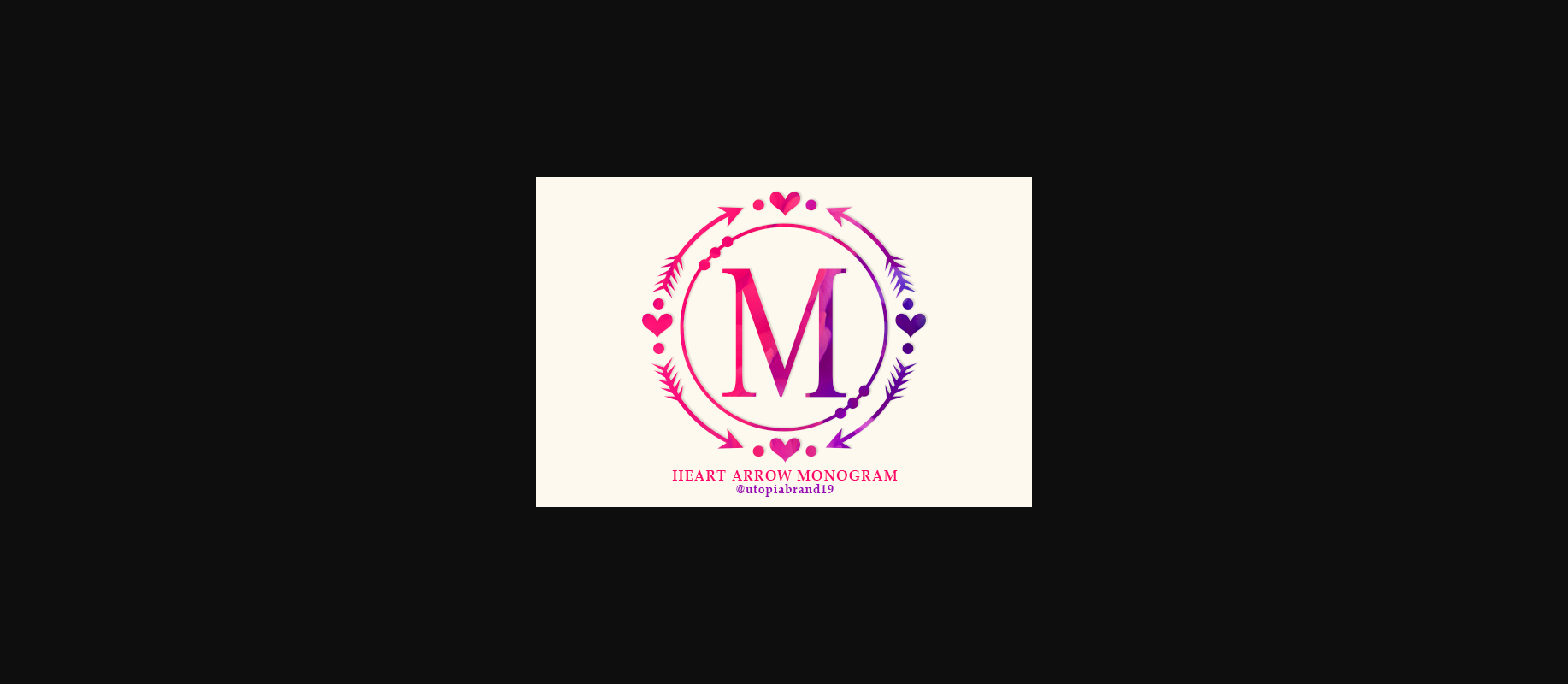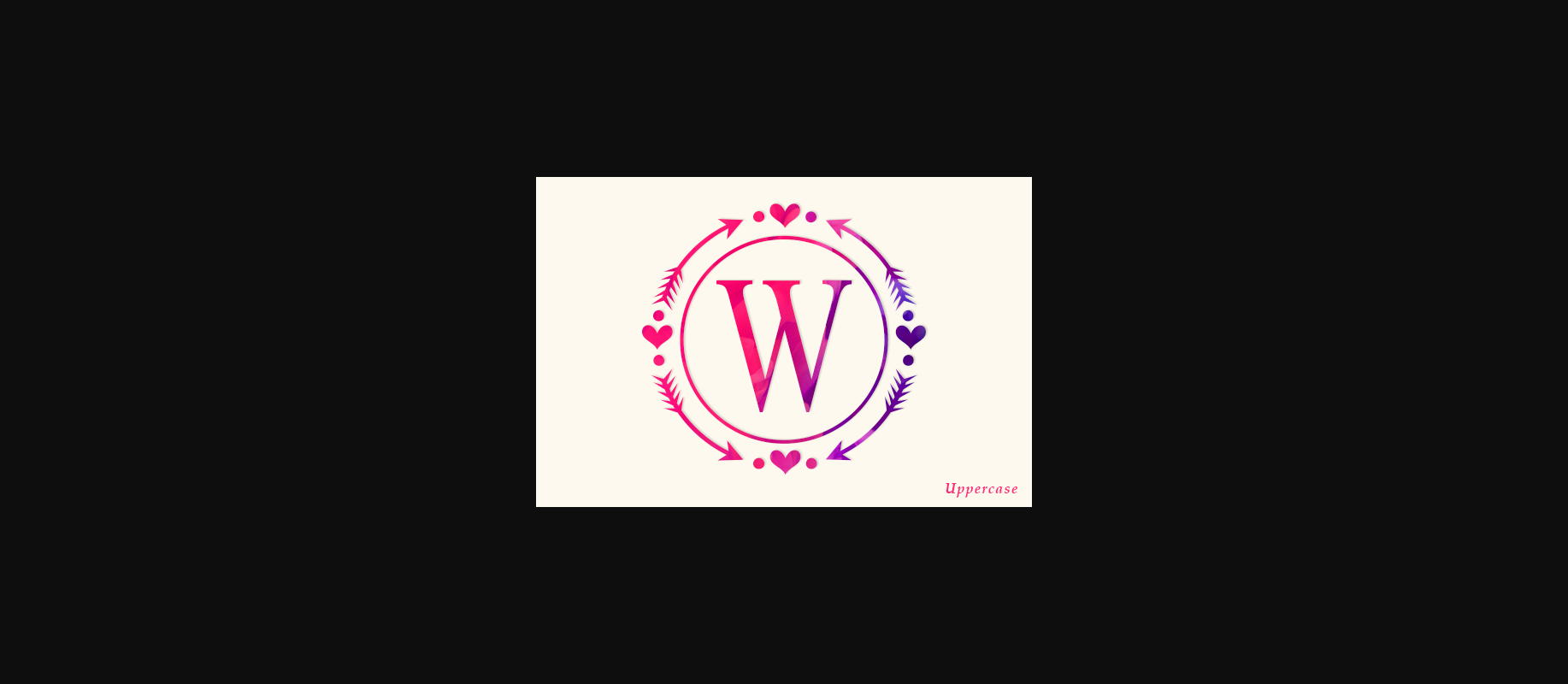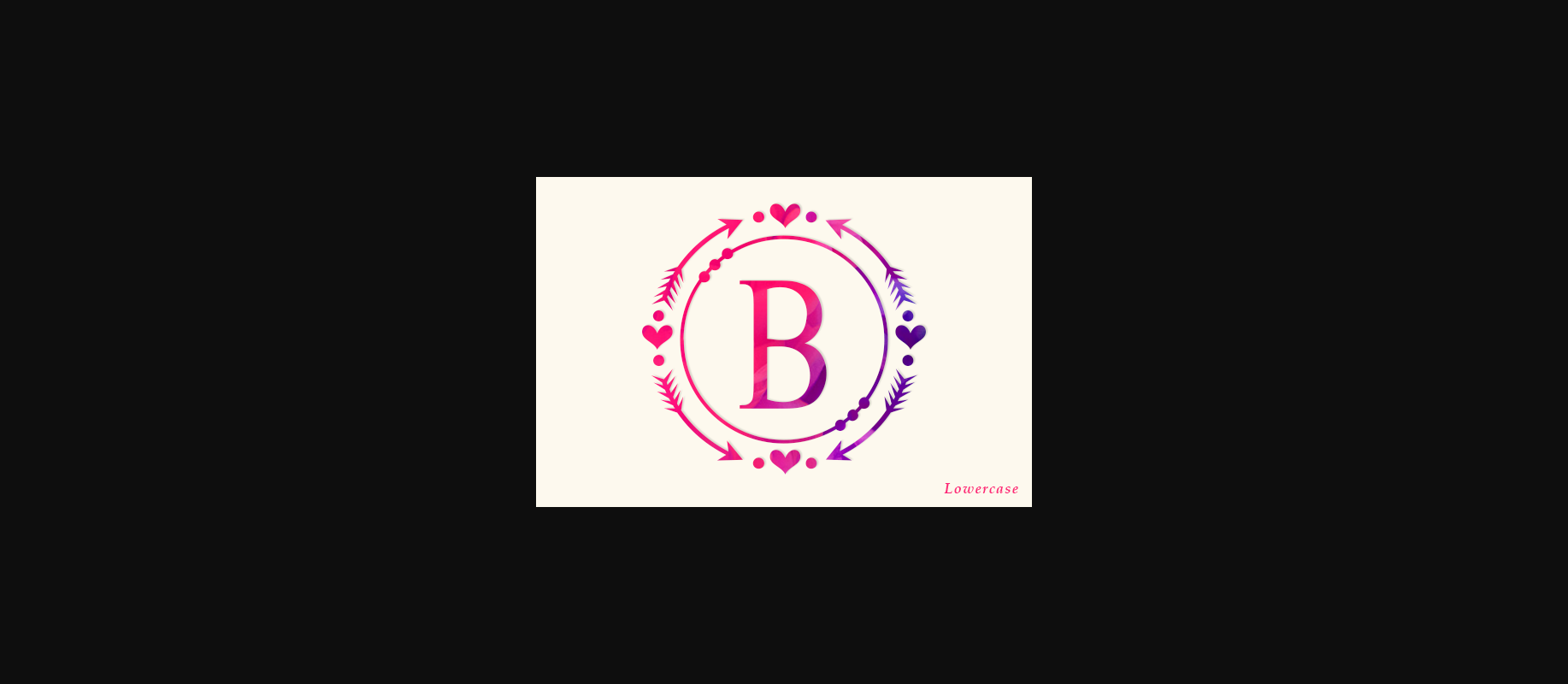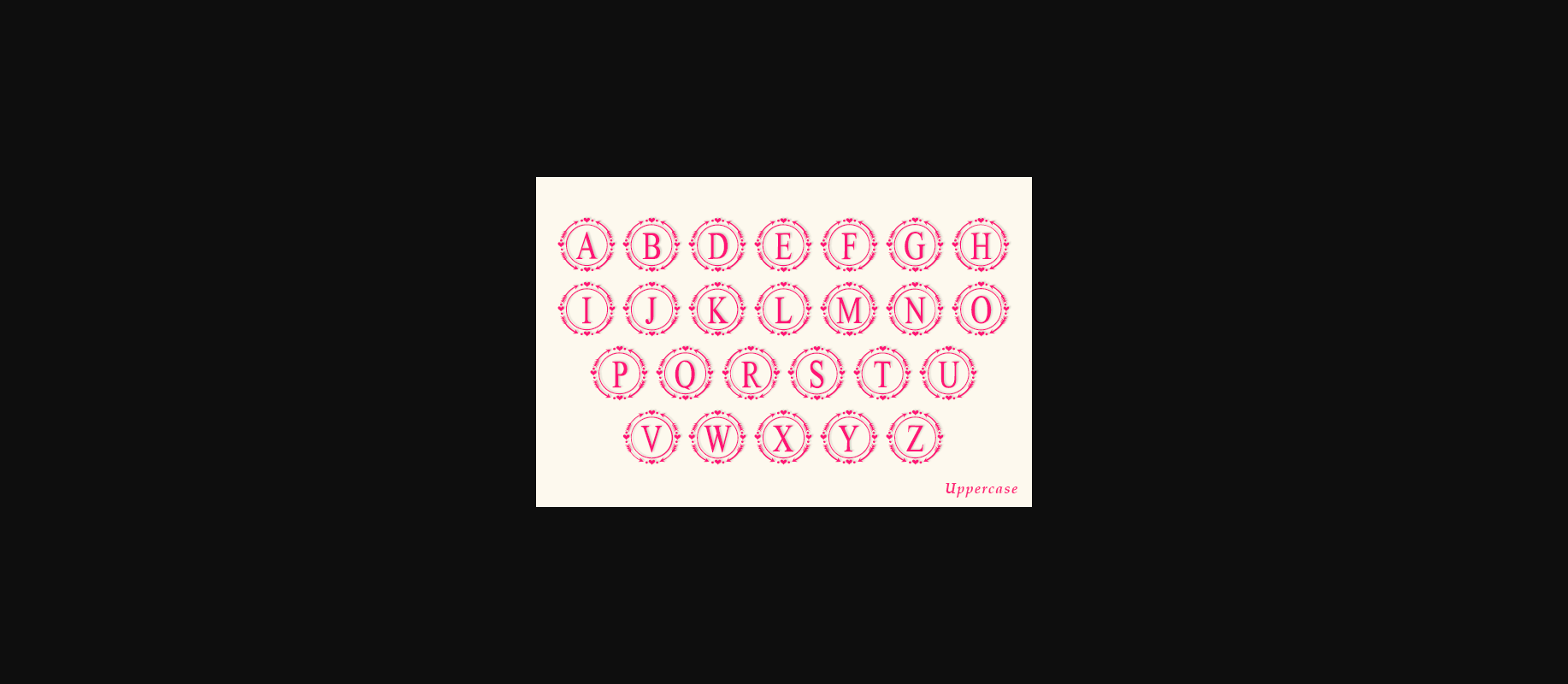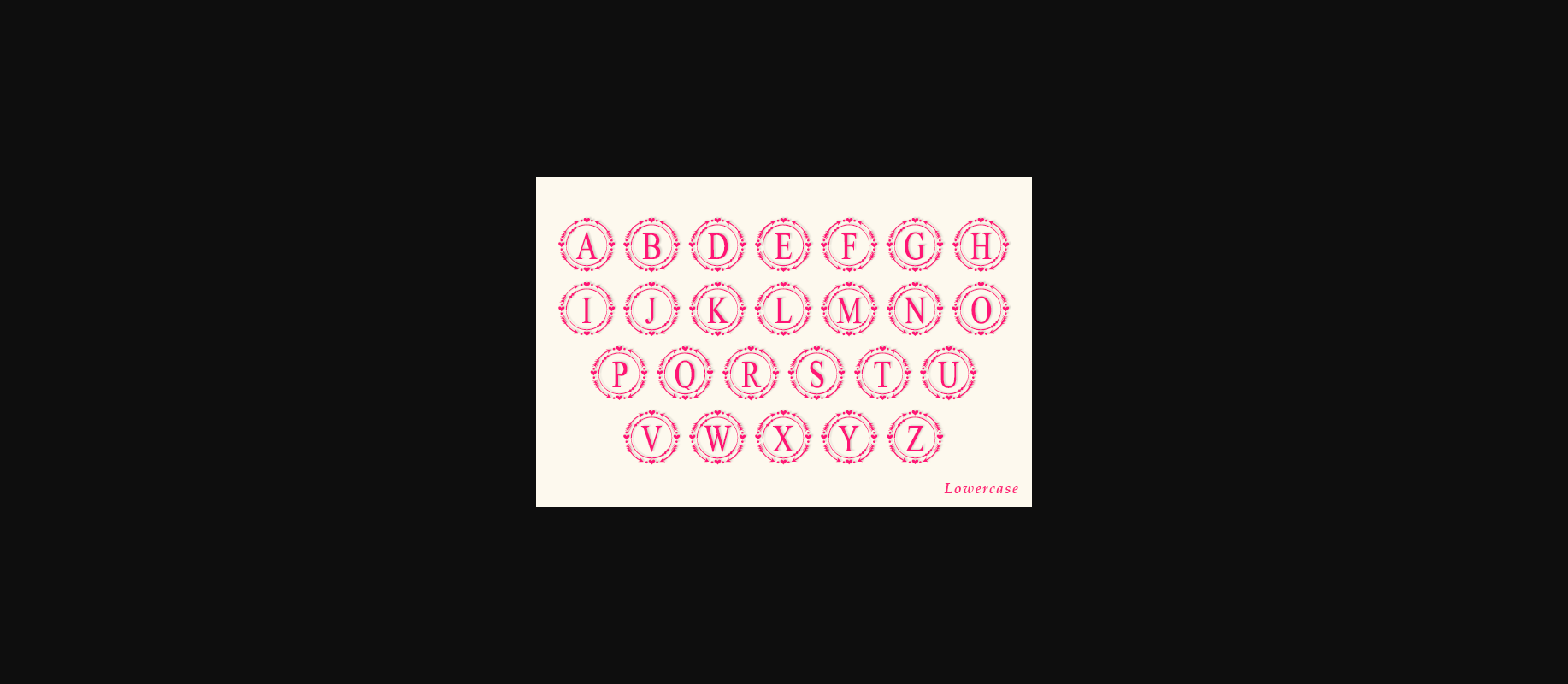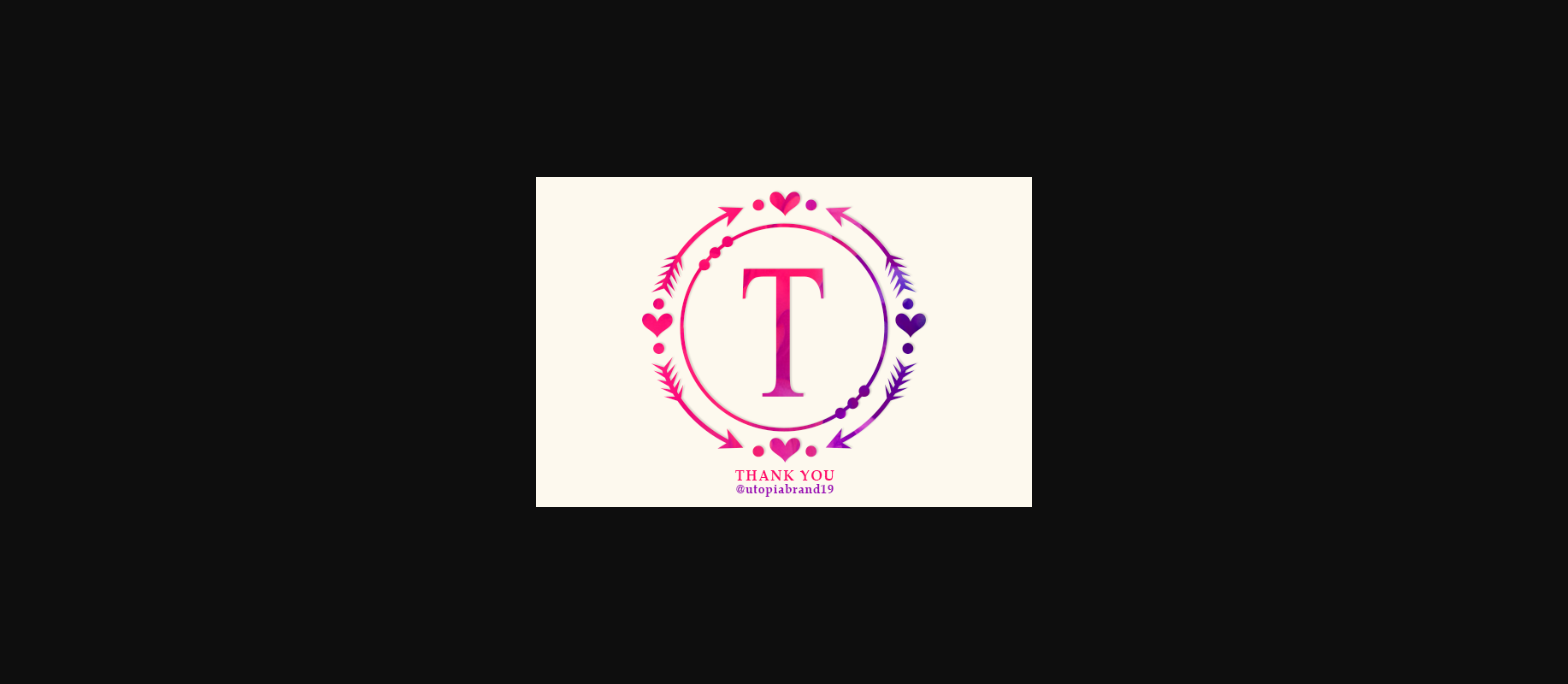
Heart Arrow Monogram Font
About Heart Arrow Monogram Font
Heart Arrow Monogram is a romantic and unique decorative font. Add this romantic and lovely looking font to each of your love letters, wedding invitations or favorite design ideas, and you will be astounded by the outcome.